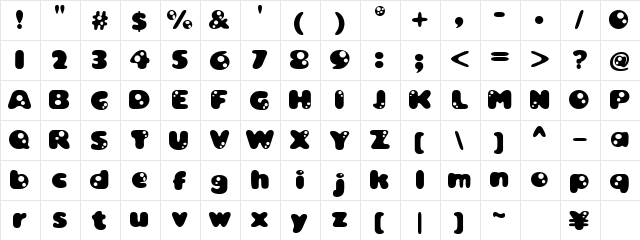
Bambina Regular
Design Context for Bambina Typeface
Bambina is a composed and adaptable typeface that performs quietly and consistently across a wide range of design contexts.